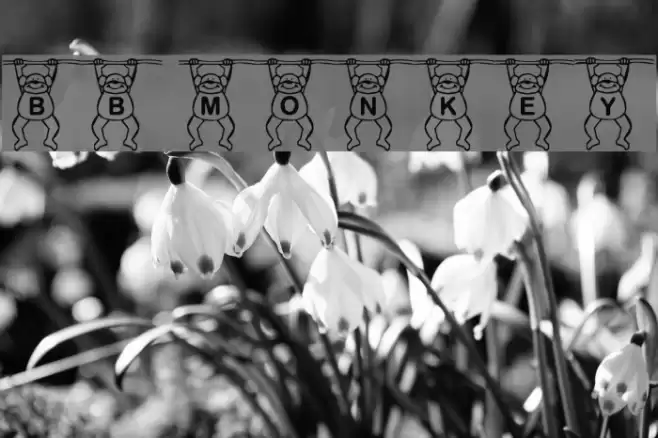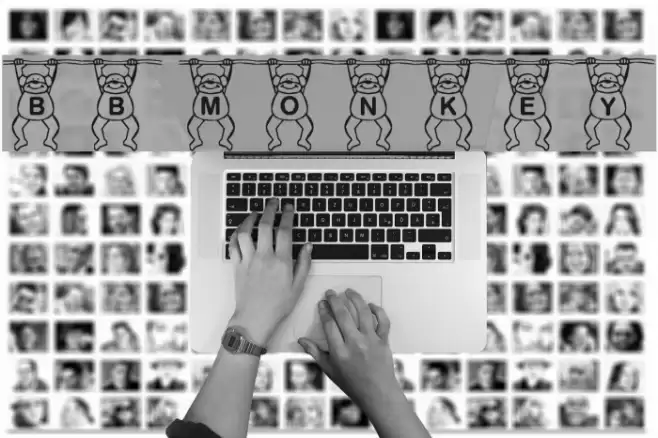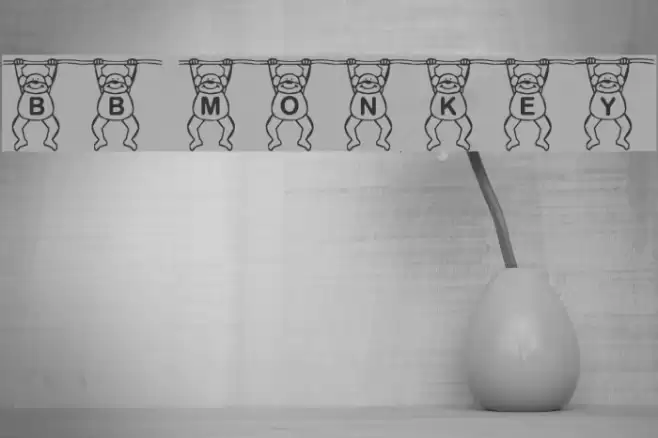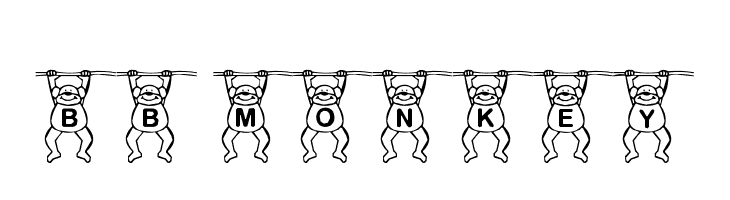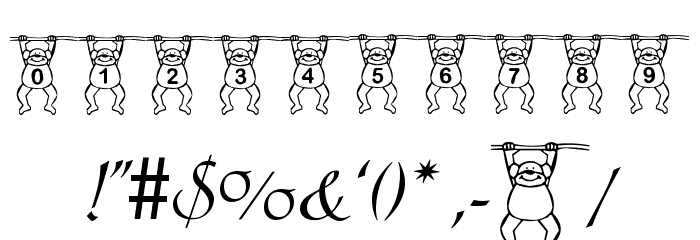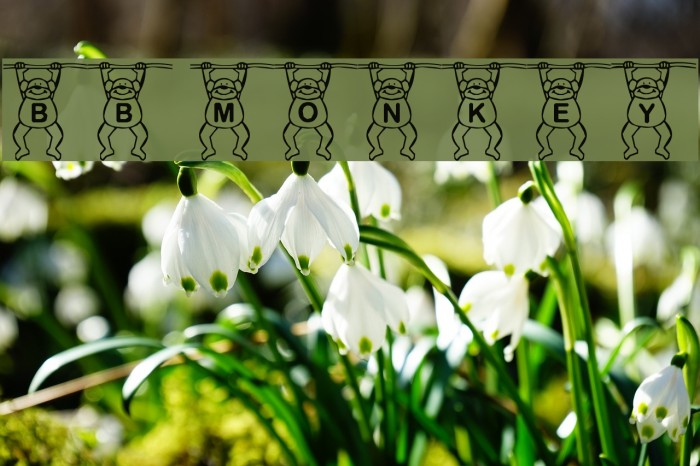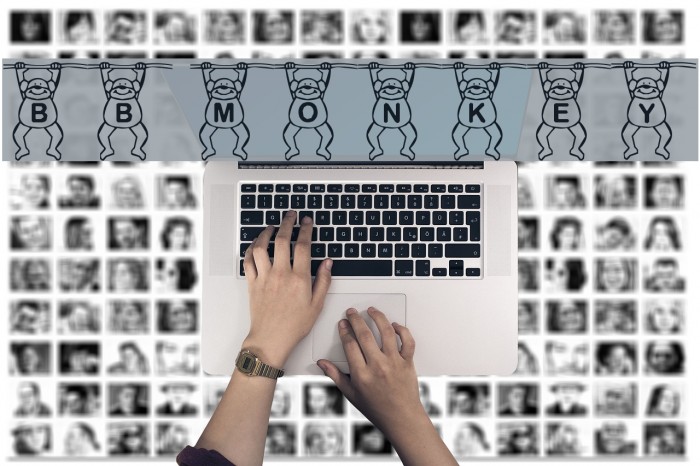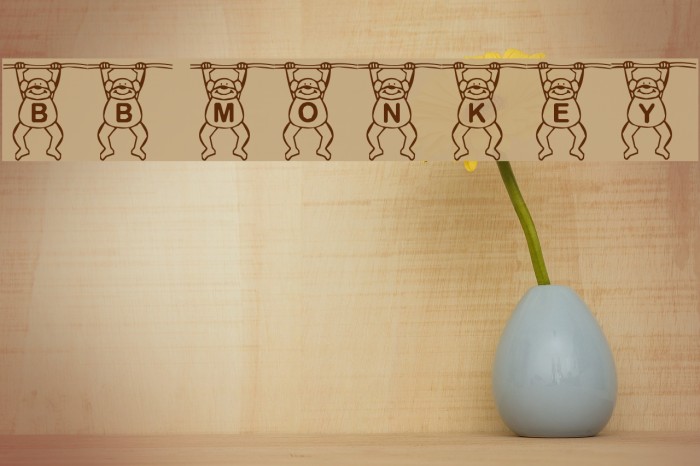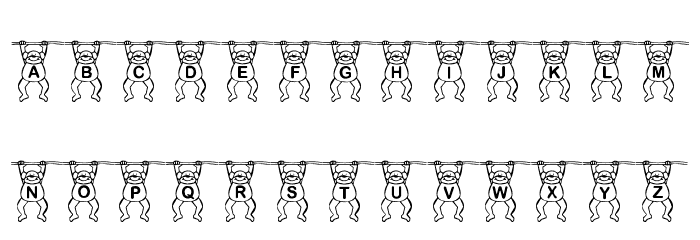
BB Monkey Font
BB Monkey Description
This playful and whimsical font features characters hanging from a bar, each represented by a monkey figure. The letters and numbers are integrated into the bodies of the monkeys, creating a unique and entertaining visual effect. The design is highly decorative, making it ideal for projects that require a fun and engaging aesthetic. The characters are evenly spaced, ensuring readability despite the intricate design. The font includes uppercase letters, lowercase letters, numbers, and a selection of special characters, all maintaining the consistent theme of monkeys hanging from a bar.
A playful, monkey-themed decorative font with characters hanging from a bar from Uncategorized fonts.
- Proposed Projects: Ideal for children's books, playful posters, party invitations, and any project needing a fun, whimsical touch.